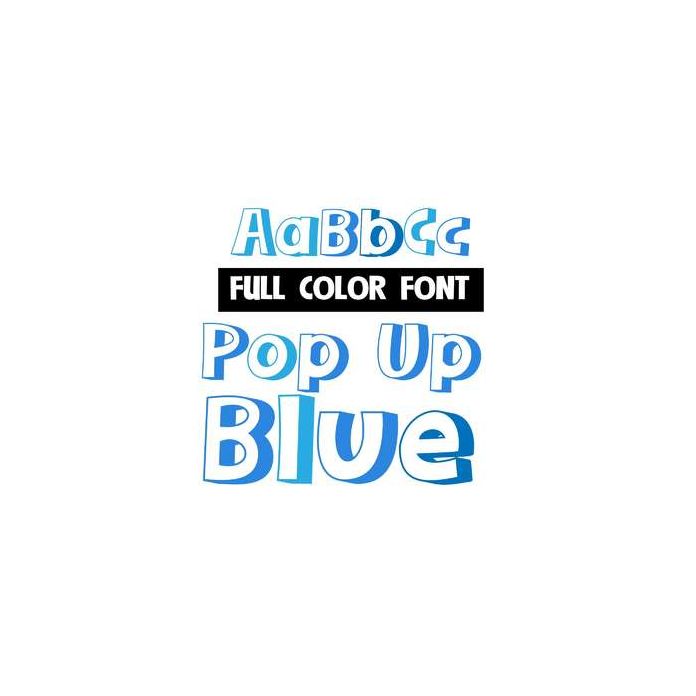
This full-color font features a 3-d letter with a white center that pops when put on dark colors. This font works best for titles, displays, posters and more. Please note color fonts will show as black in non compatible programs. This font type is compatible with Silhouette Studio.